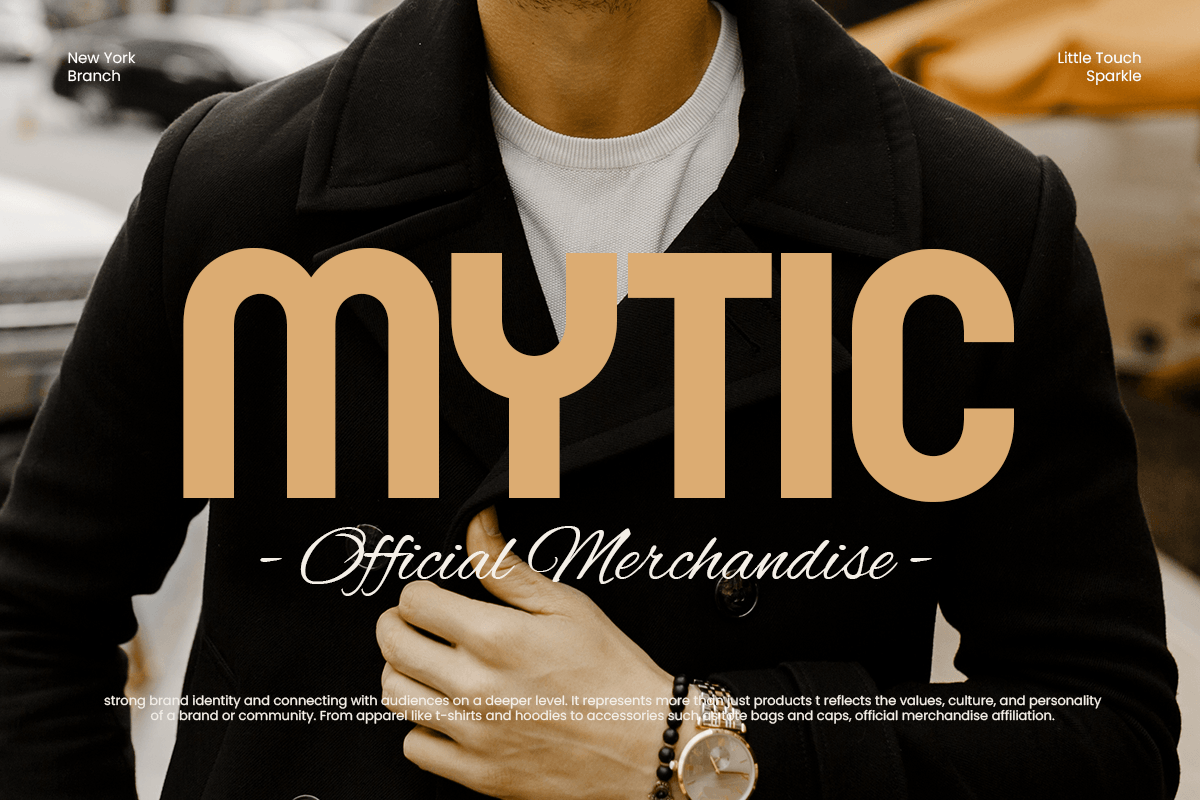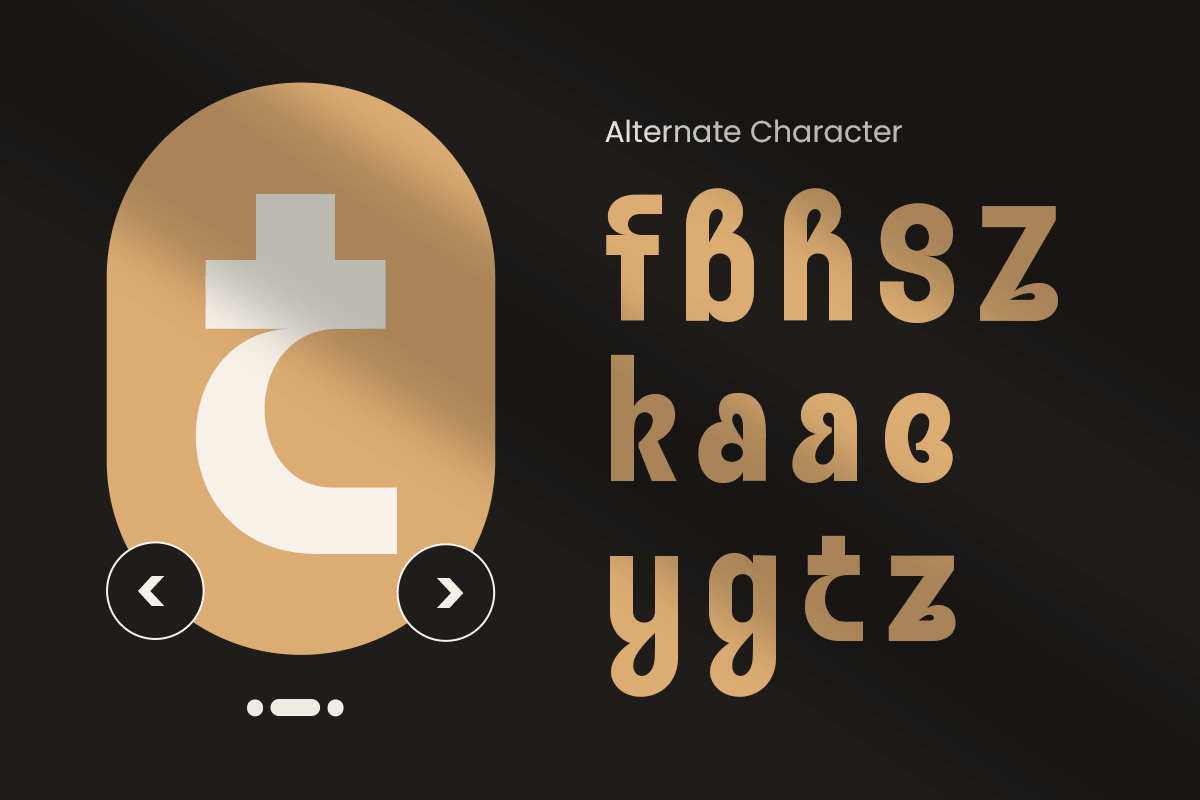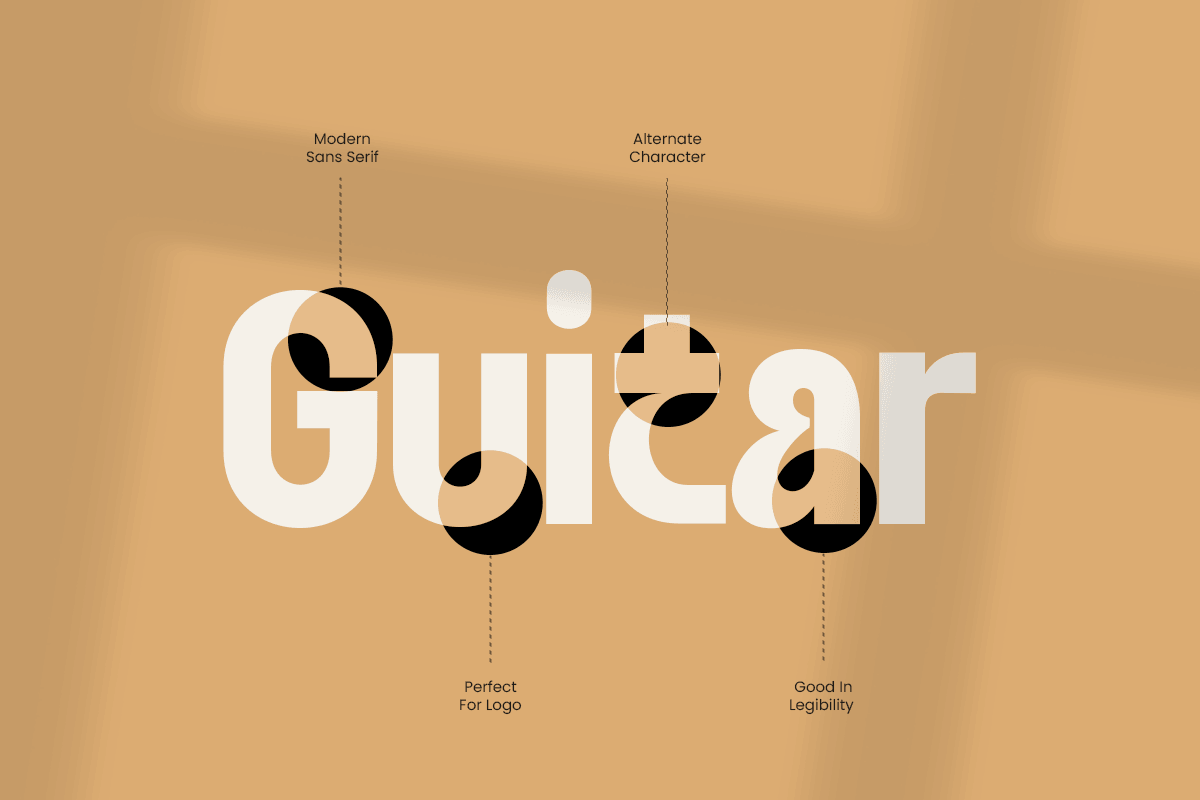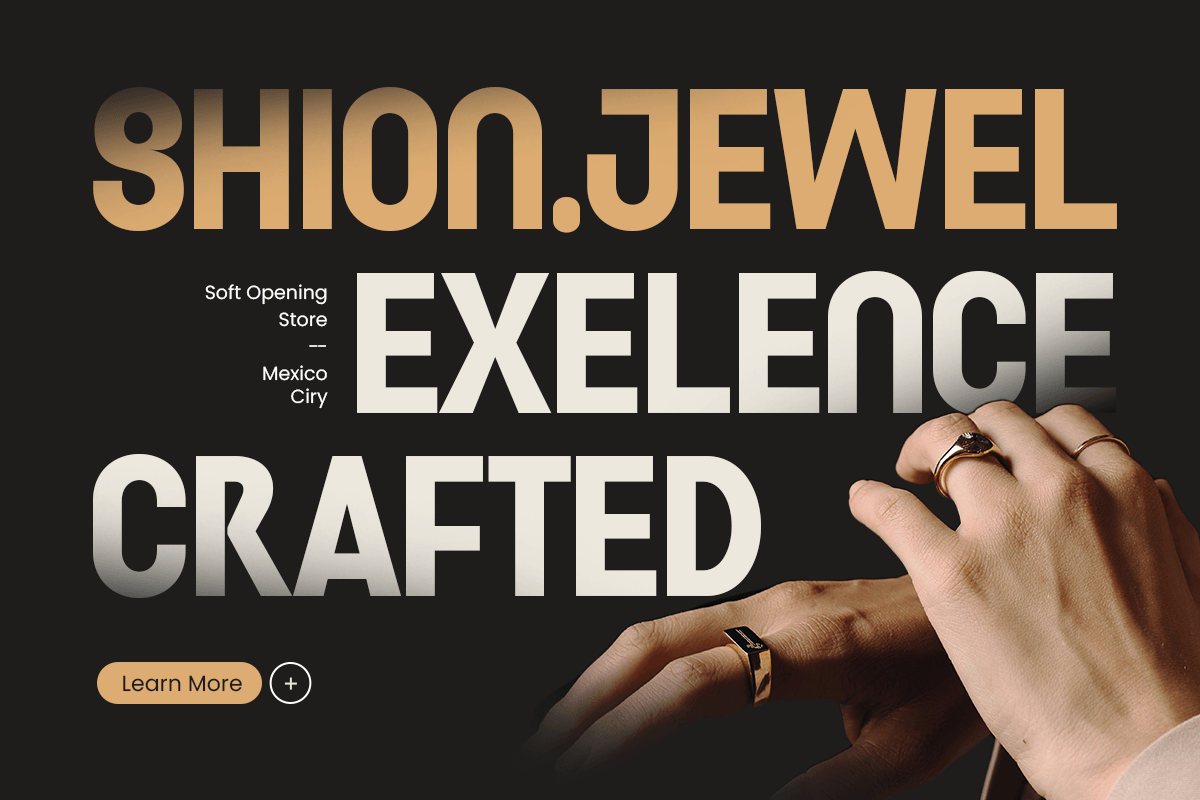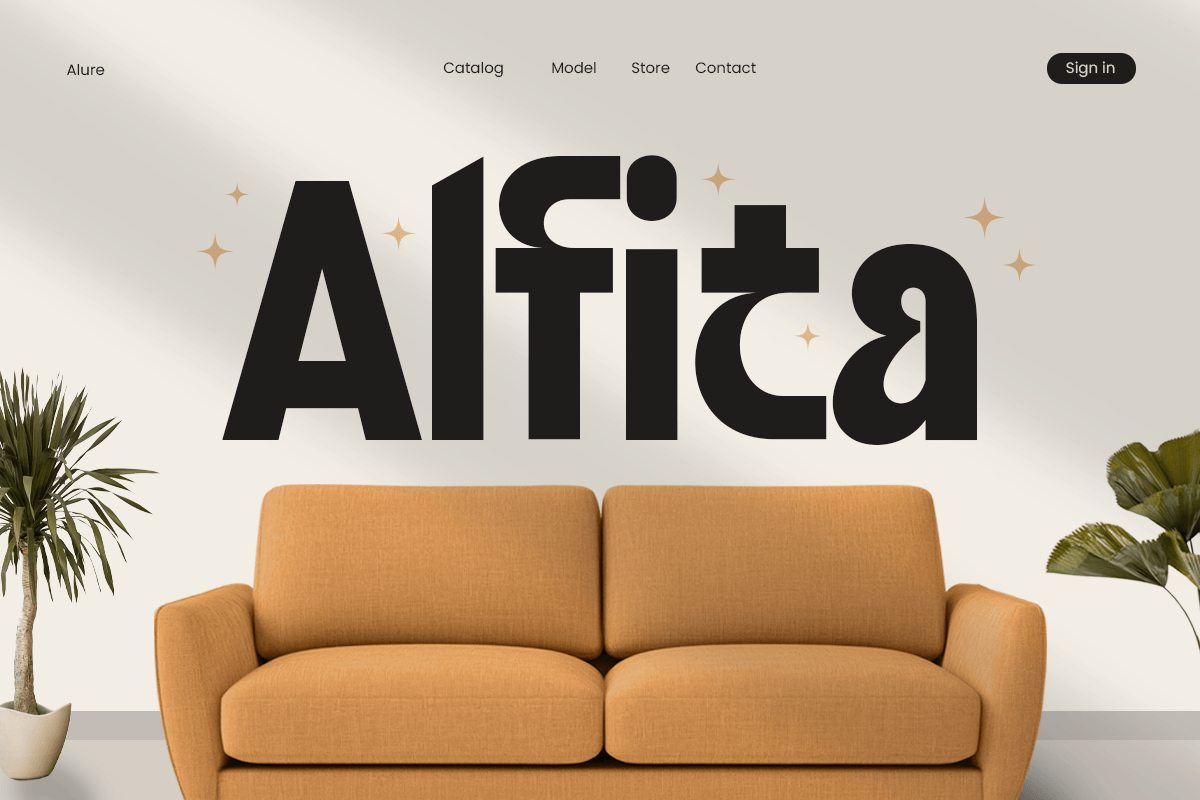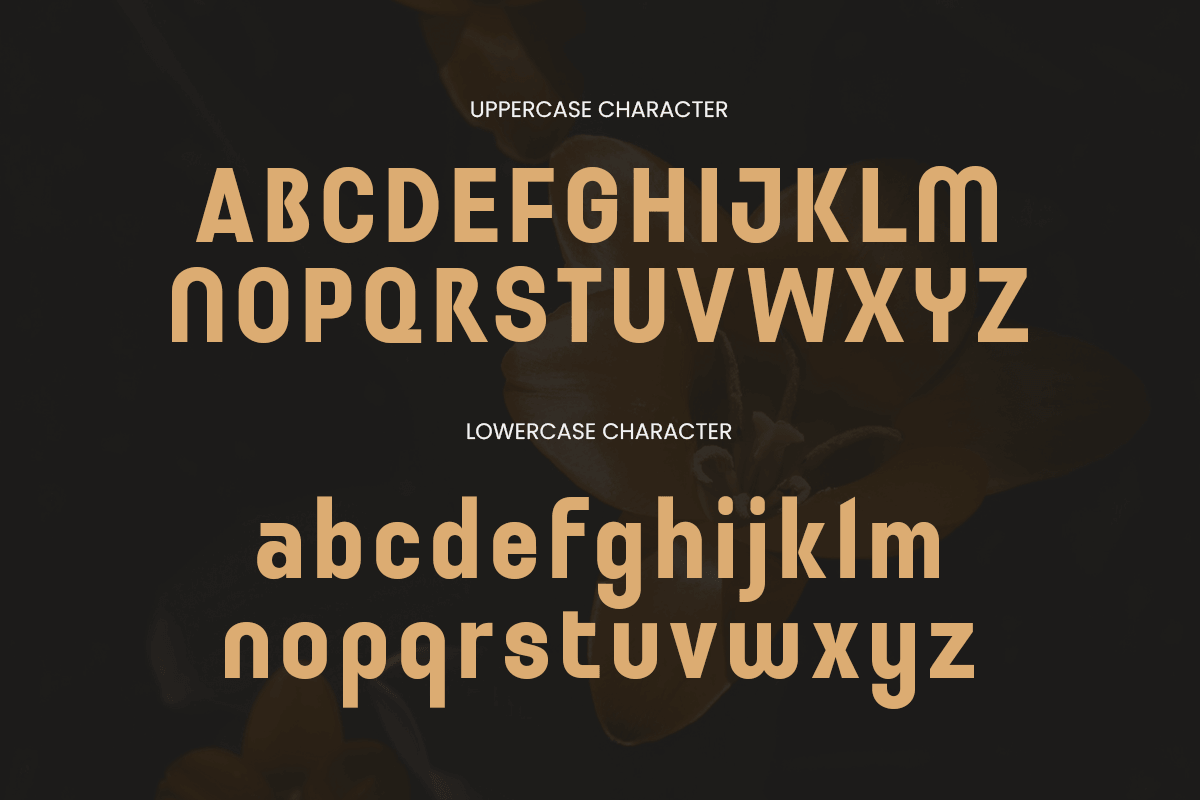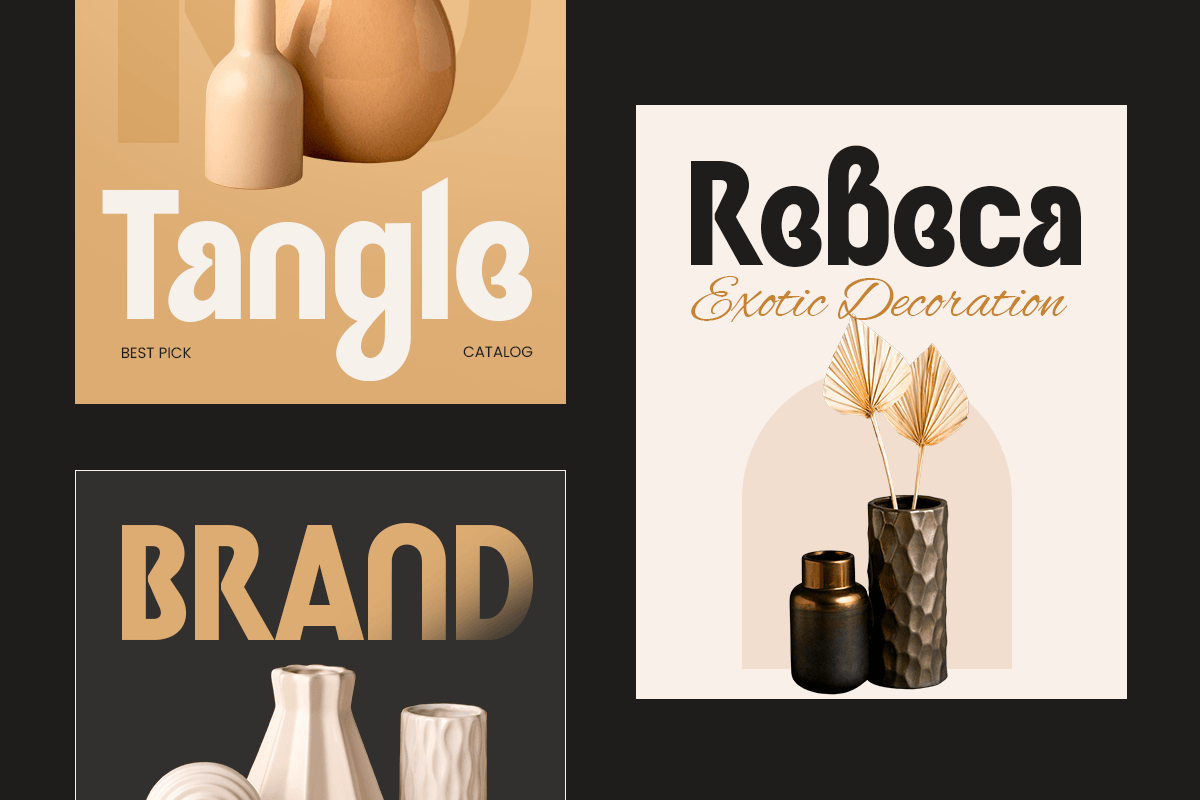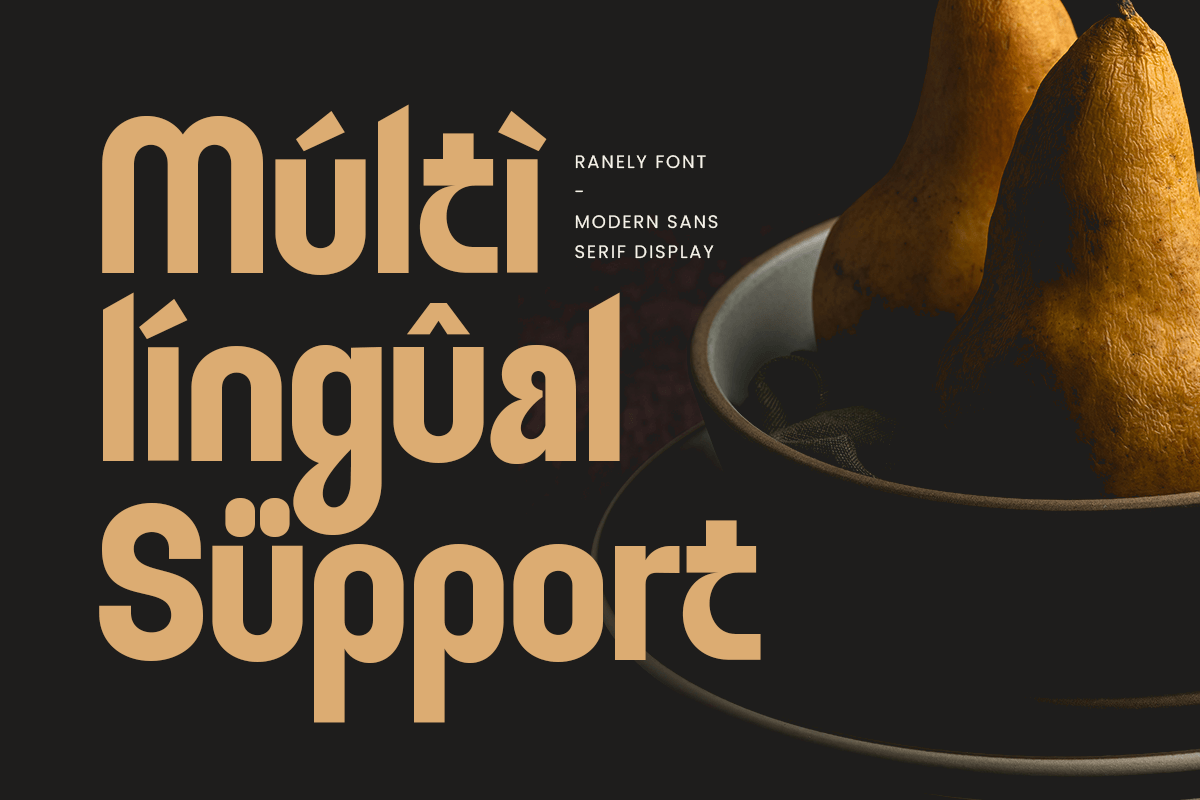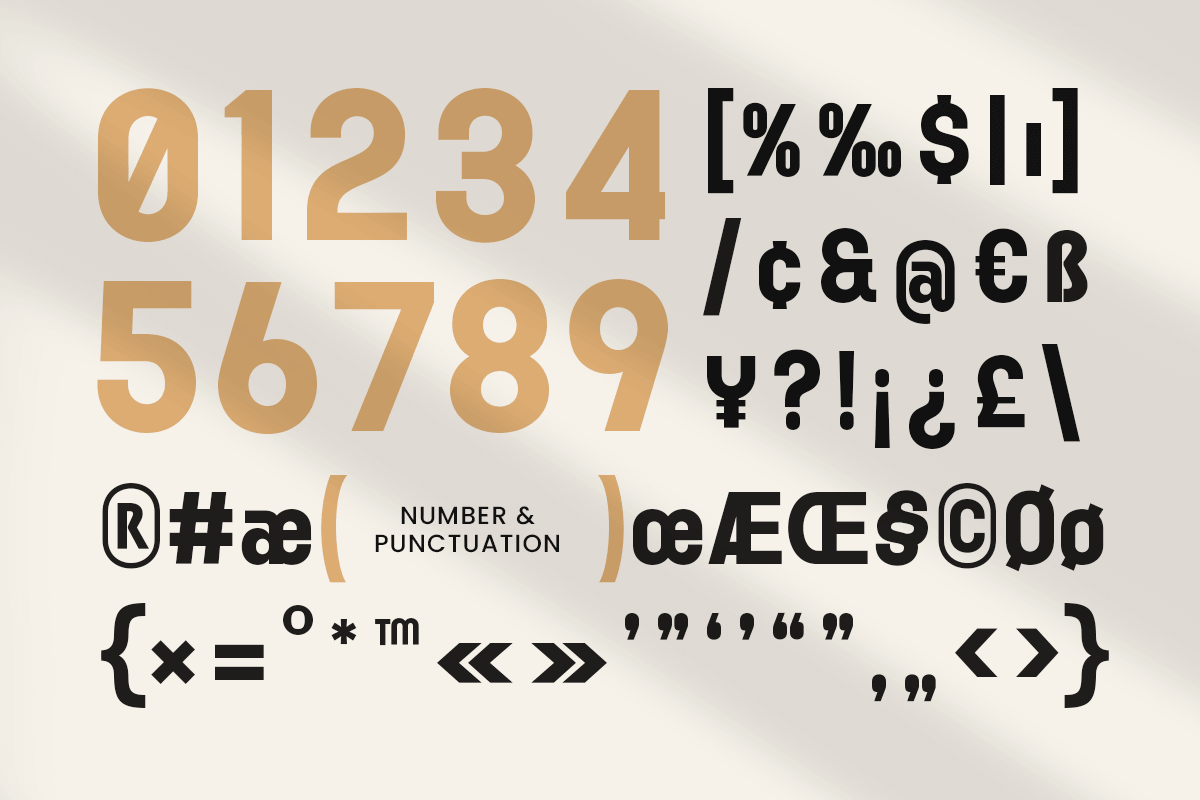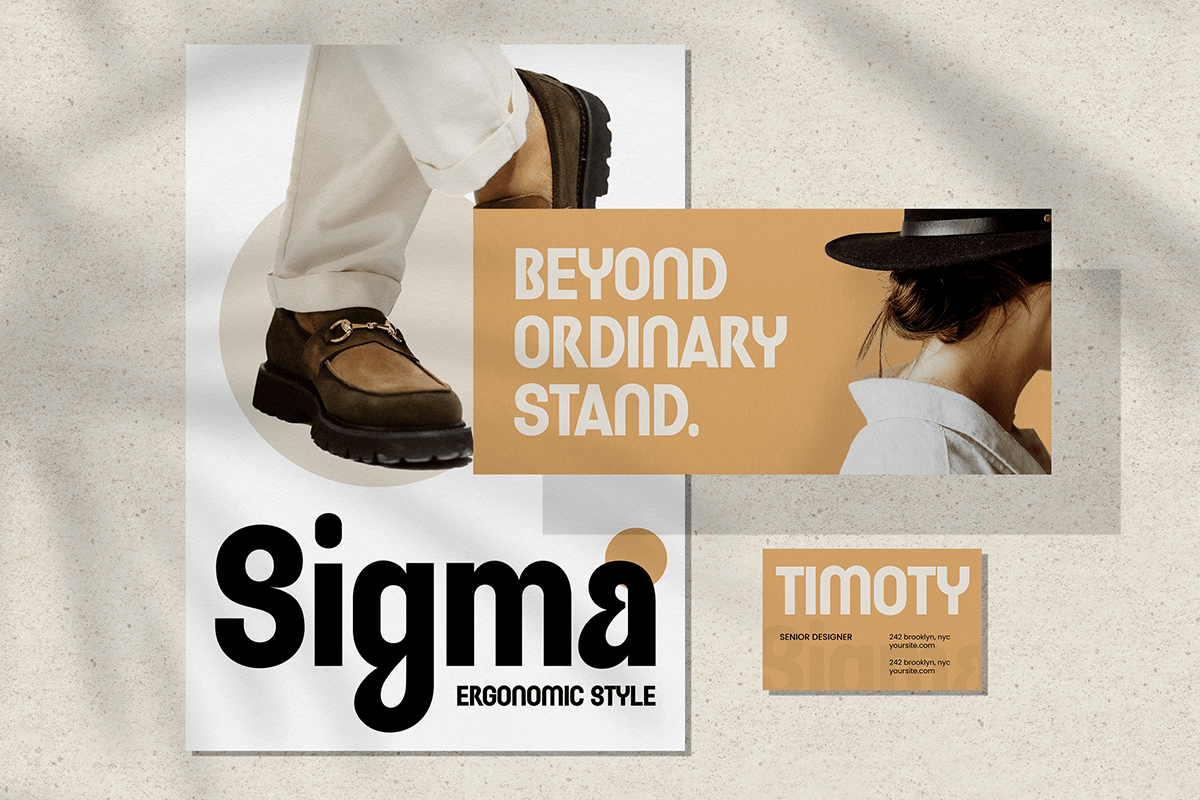
Ranely - Modern Sans Serif Font
Ranely is a modern sans serif display font designed to deliver clean structure, bold clarity, and contemporary visual confidence. With balanced proportions, smooth letterforms, and a polished display rhythm, this typeface creates a professional tone that feels sleek, fresh, and instantly brand-ready.
Built for modern branding and headline-focused layouts, Ranely works beautifully across logos, wordmarks, website headers, posters, packaging, labels, presentations, signage, social media graphics, and digital marketing visuals. Its sans serif structure keeps every composition readable while adding a strong modern presence across both print and digital design.
Whether you’re building a startup identity, creating product branding, designing clean editorial titles, or crafting bold promotional campaigns, Ranely provides a versatile typographic foundation that makes your visuals feel sharp, organized, and memorable.
Inspiration Behind Ranely
Ranely is inspired by contemporary sans serif typography and modern display branding—where clarity, balance, and strong visual rhythm create confident communication. The design focuses on clean structure and flexible readability to support logos, headlines, and digital-first identity systems with a sleek modern feel.
Ranely Font Features:
Modern sans serif display letterforms with clean professional character
Perfect for logos, branding systems, and bold headline typography
Strong readability for posters, packaging, and digital layouts
Balanced structure for sleek contemporary visual identity
Uppercase, lowercase, numerals, and punctuation included
OpenType features for polished professional typesetting
* Logos, wordmarks, and modern brand identity systems
* Website headers, UI layouts, and digital product typography
* Posters, campaigns, and headline-driven promotional design
* Packaging, labels, signage, and product branding visuals
* Social media graphics, presentations, and marketing assets
Build a sharper modern identity with Ranely—a sans serif display font made for clean, confident visual impact. ✨